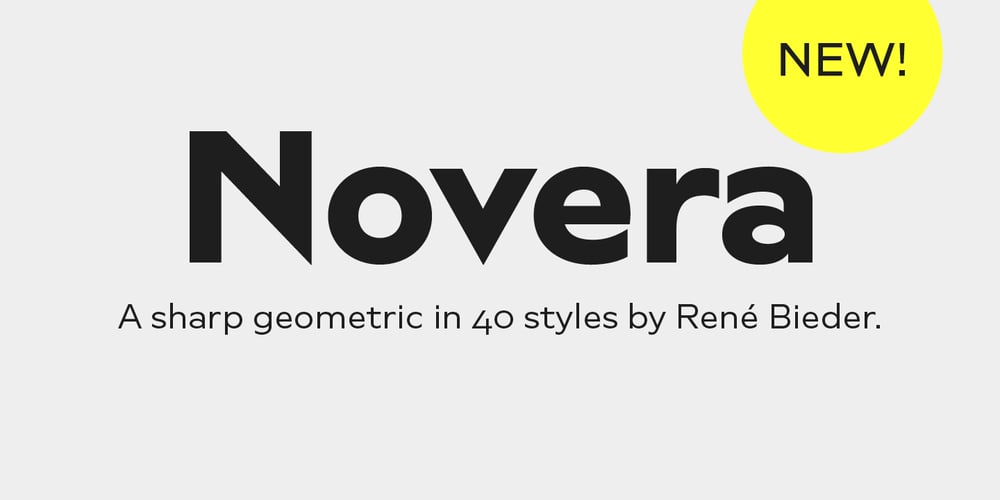
Novera Font Family was designed by René Bieder and published by René Bieder. Novera contains 40 styles and family package options. The Novera family is a sharp geometric sans in ten weights plus matching italics, available in two versions – Modern and Classic. It has a contemporary, approachable and multifunctional yet characteristic design, that comes with an extensive glyphs set of 1000+ glyphs per font, meeting all typographic demands. The DesignVertical terminals, circular shapes and angular apexes – Novera truely breathes geometry! But the concept goes beyond the application of rational geometry. The intension was to create a highly legible family suitable for every day usage inspired by the work of Paul Renner, Eric Gill or Jakob Erbar, combining the geometric with the human and the functional with the unconventional. Although Novera is inspired by the past, its appearance is unmistakingly modern.Modern vs ClassicNovera is available in two versions – Modern and Classic – born from the same source file but with different characters set as default. This creates subtle but effective distinctions such as the double-storey a (Novera Modern) which is optimized for legibility in longer text paragraphs, as opposed to the single-storey a (Novera Classic) which allows a purely geometric appearance. Another distinguishing feature are the ascenders on Novera Mondern, which extend above the cap height for an elegant presence, compared to the ascenders on Novera Classic, ending at the cap height, for a compact and helvetica-flavored look. Novera Modern was intended for usage in body copy, whereas Novera Classic was planned for headlines, short paragraphs or logos, but both versions can be used vice versa too, of course.Alternate CharactersTo maintain neutrality and a modern appearance, the standard character set largely dispenses with idiosyncratic forms. This is in contrast to the alternative forms with the gill-like lowercase letters g and t as well as a traditional shape of S and the German ligature t/z, which traces back to old German spellings. Also inspired by German poster designs from the early 20th century are the elongated i-dots and dieresis-dots that can create eye-catchers in headlines or logos. By the way, both versions, Novera Modern and Classic, can be created via stylistic set 1, 17 and 18.Opentype Features and SymbolsThe family comes with many opentype features to support modern typesetting. This includes ligatures, different number sets or alternative shapes for texts set in all caps.If you like arrows and other shapes, you will love Novera! The family has a built-in extensive symbols-set including 48 different arrows and various geometric shapes or icons.WeightsWith its 40 styles and 1000+ glyphs per font, the Novera family covers all thinkable design scenarios from branding to web, app or editorial usage. It blends in perfectly in text heavy paragraphs with its mid-weights like Light, Regular, Medium or Bold or stands out like a monument in headlines and posters with its extreme weights like Thin, ExtraLight, Black or Ultra. TestfontsIf you like to test the fonts before buying the full version, please follow the link below. Please note, all test fonts are available for evaluation purposes only and contain a limited character set! A commercial license for the full version must be purchased separately. Please send a mail to contact@renebieder.com for more information.Download the test fonts here: https://www.renebieder.com/test-fonts